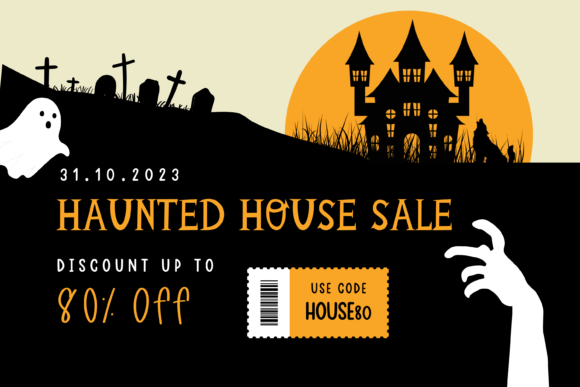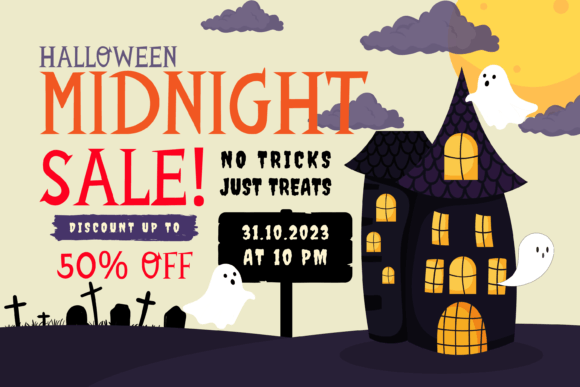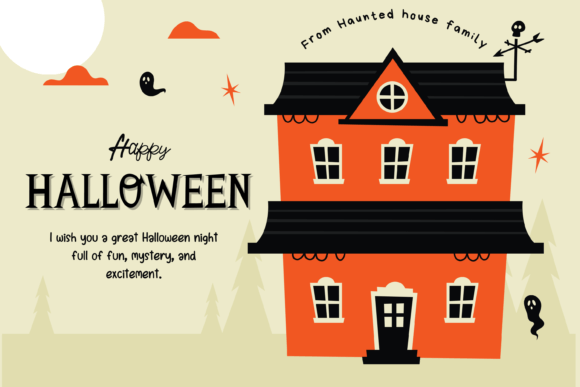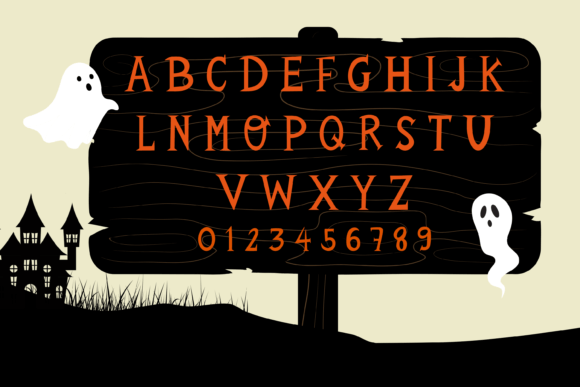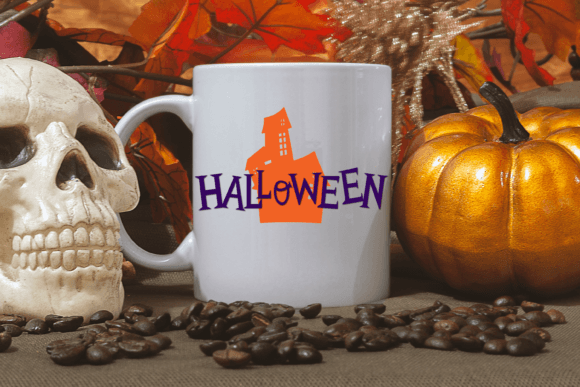
Unleash the Spook: Exploring the Haunted House Font for Your Creepy Creations
Are you a designer, crafter, or DIY enthusiast looking to add a dash of spookiness to your projects? Look no further than the Haunted House Font, a fun and playful display font that’s perfect for creating eye-catching and eerie designs. In this article, we’ll dive into the world of Haunted House Font, exploring its features, uses, and benefits, as well as provide tips and inspiration for incorporating it into your creative projects.
What is Haunted House Font?
Haunted House Font is a display font designed to evoke the spirit of Halloween and the supernatural. With its bold, playful, and slightly creepy design, it’s ideal for creating attention-grabbing headlines, titles, and text for a variety of projects. The font features a unique blend of classic and modern elements, making it versatile and adaptable to different design styles and themes.
Features and Benefits of Haunted House Font
So, what makes Haunted House Font so special? Here are some of its key features and benefits:
- Unique and eye-catching design: Haunted House Font boasts a one-of-a-kind design that’s sure to grab attention and add a touch of spookiness to your projects.
- Versatile and adaptable: The font is suitable for a wide range of projects, from posters and flyers to social media graphics, movie and book titles, invitations, stickers, t-shirts, logos, and more.
- High-quality and scalable: The font is designed to be high-quality and scalable, ensuring that it looks great in any size or resolution.
Uses for Haunted House Font
Haunted House Font is a versatile font that can be used in a variety of creative projects. Here are some ideas to get you started:
- Halloween-themed designs: Create spooky posters, flyers, and social media graphics for Halloween parties, haunted houses, or other spooky events.
- Movie and book titles: Use Haunted House Font to create eye-catching titles for horror movies, books, or other spooky-themed media.
- Invitations and party decor: Design creepy invitations, banners, and decorations for Halloween parties or other spooky-themed events.
- Fashion and apparel: Create bold and eye-catching designs for t-shirts, hoodies, or other clothing items with Haunted House Font.
- Logos and branding: Use the font to create unique and memorable logos for businesses, products, or services with a spooky or supernatural theme.
Tips for Using Haunted House Font
Here are some tips for getting the most out of Haunted House Font:
- Experiment with different sizes and colors: Play around with different font sizes and colors to create a unique and eye-catching design.
- Combine with other fonts: Pair Haunted House Font with other fonts to create a bold and contrasting design.
- Add graphics and illustrations: Combine the font with spooky graphics and illustrations to create a cohesive and immersive design.
- Keep it simple: Don’t be afraid to keep your design simple and bold, using Haunted House Font as the focal point.
Inspiration and Examples
Need some inspiration for using Haunted House Font? Here are a few examples of how you can use the font in your designs:
- Haunted house poster: Create a spooky poster for a haunted house attraction, featuring Haunted House Font in bold and eye-catching lettering.
- Halloween party invitation: Design a creepy invitation for a Halloween party, using Haunted House Font to set the tone for a spooky celebration.
- Horror movie title: Use Haunted House Font to create a bold and eye-catching title for a horror movie or book.
With its unique and eye-catching design, Haunted House Font is the perfect choice for designers, crafters, and DIY enthusiasts looking to add a touch of spookiness to their projects. Whether you’re creating Halloween-themed designs, movie and book titles, or simply want to add some personality to your designs, Haunted House Font is sure to impress.